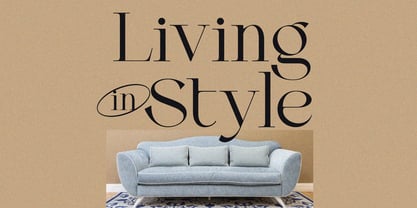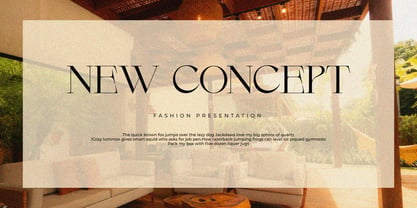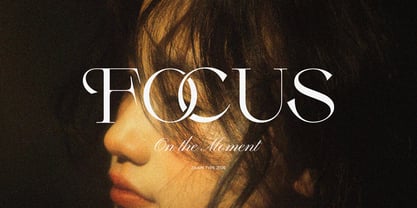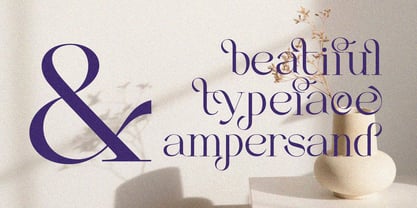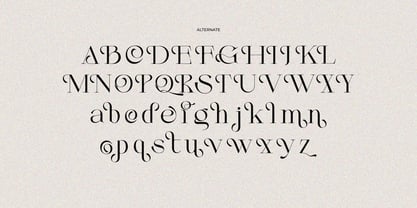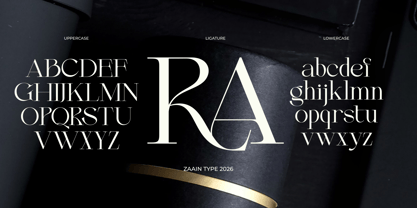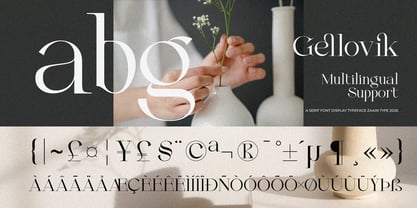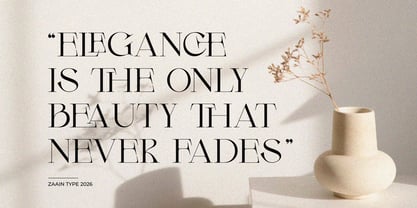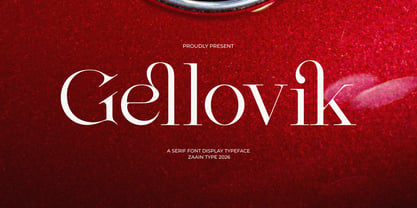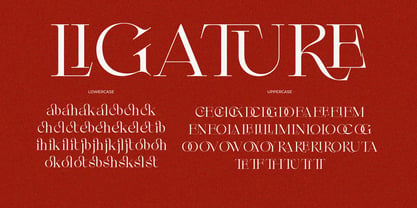
Gellovik
by Zaain Type
Gellovik is a refined modern serif typeface that blends timeless elegance with contemporary sophistication. Designed with graceful high-contrast strokes, balanced proportions, and beautifully crafted letterforms, Gellovik brings a luxurious character to every design.
Perfect for branding, editorial layouts, fashion campaigns, cosmetic packaging, wedding invitations, logos, magazines, and premium product presentations, Gellovik delivers a polished and memorable visual identity. Whether used for bold headlines or elegant typography, it creates a distinctive and professional impression